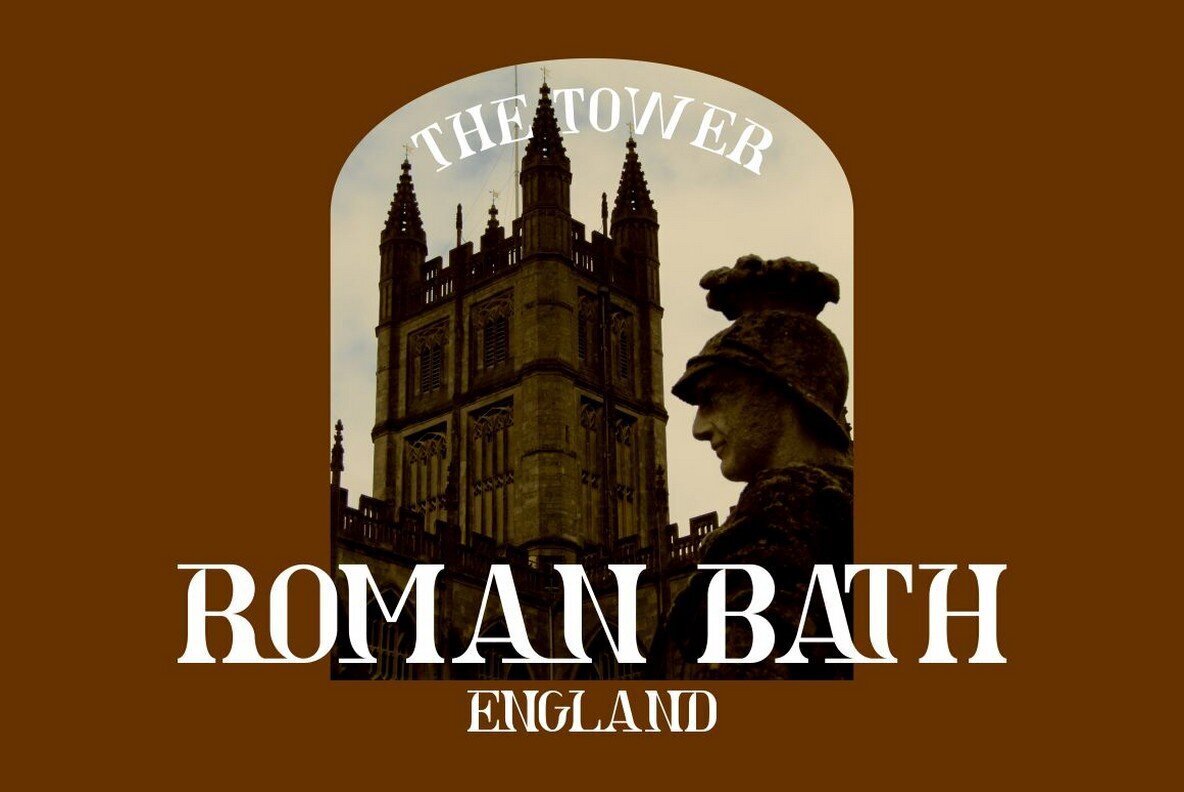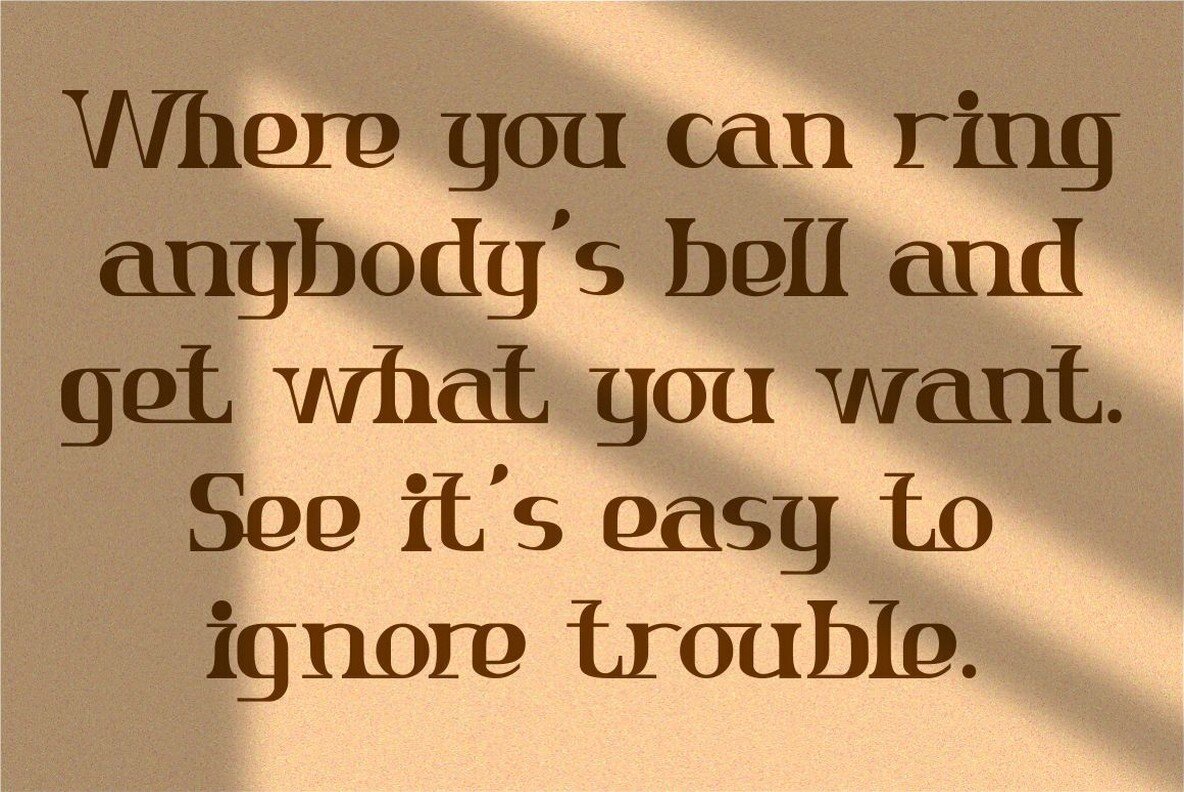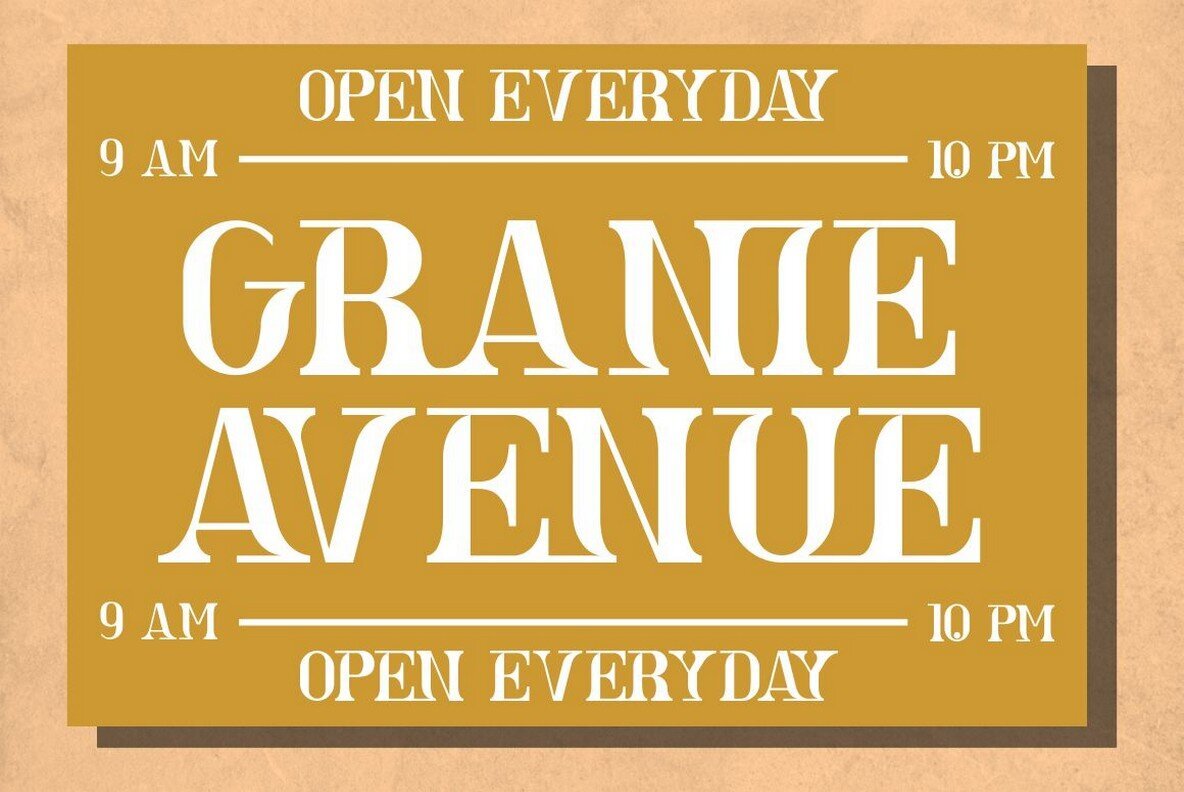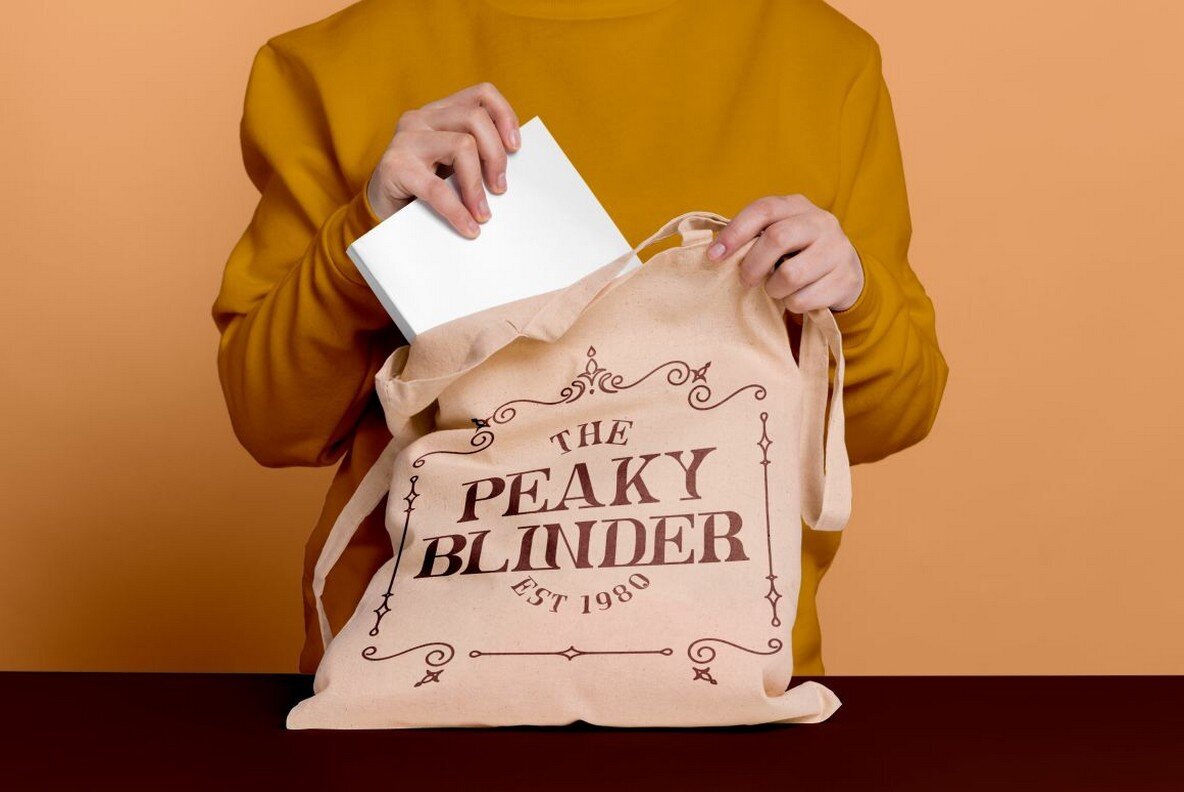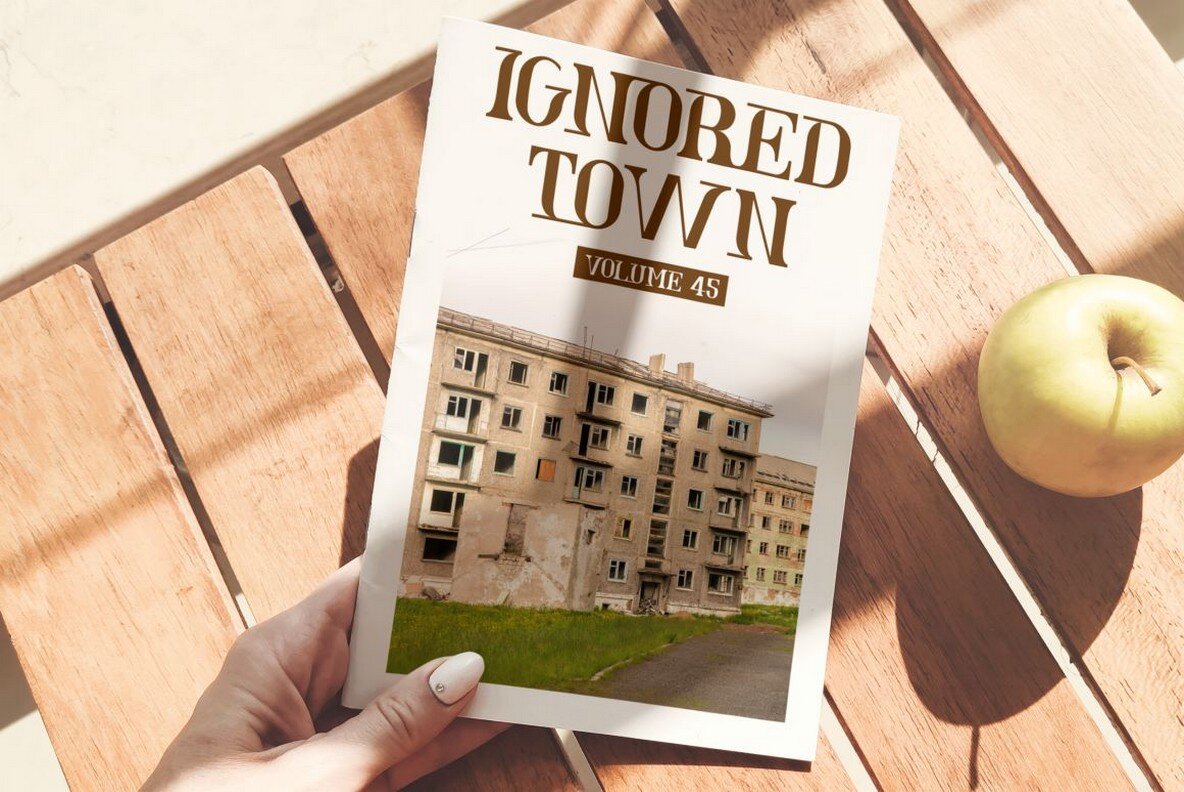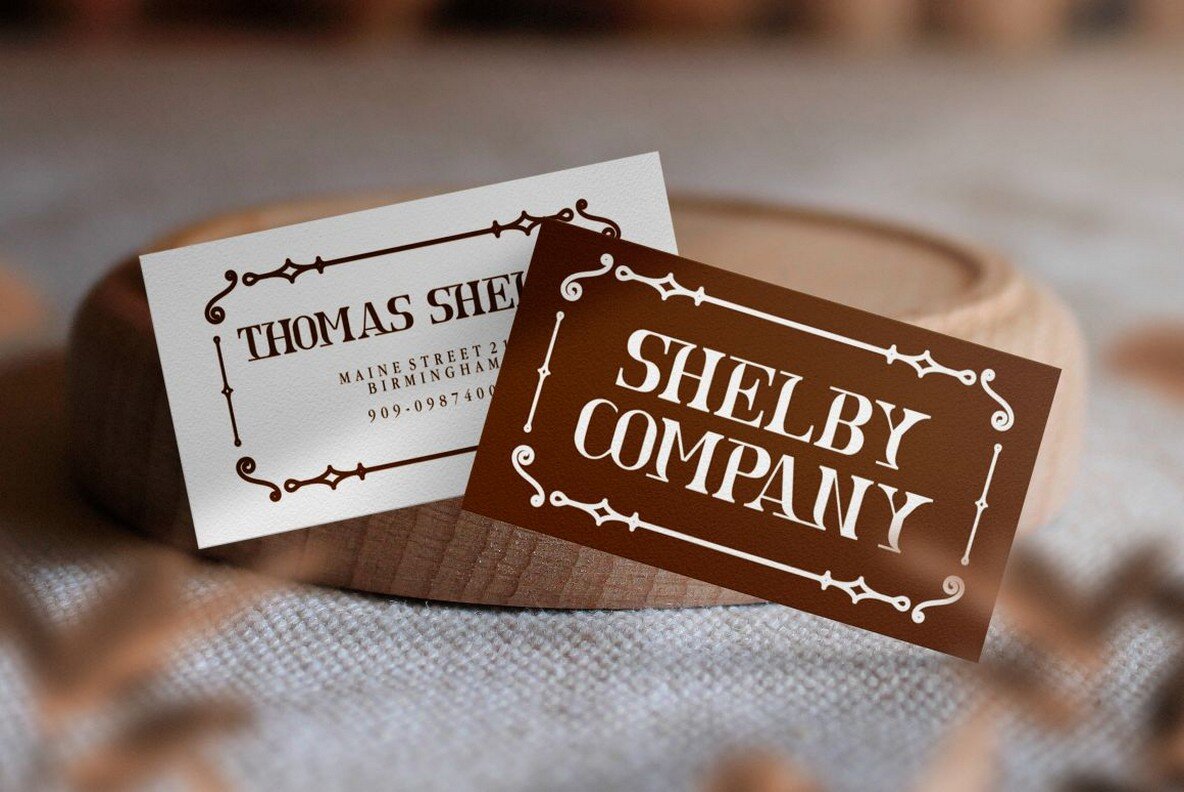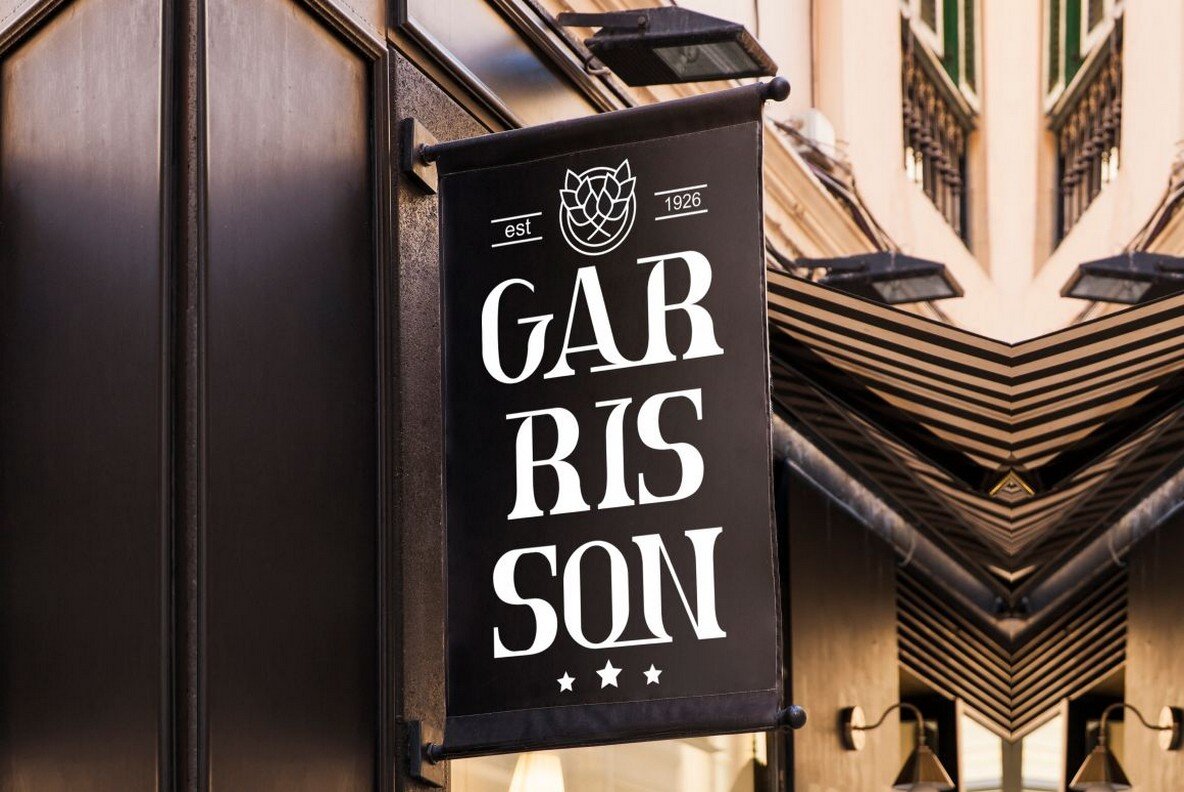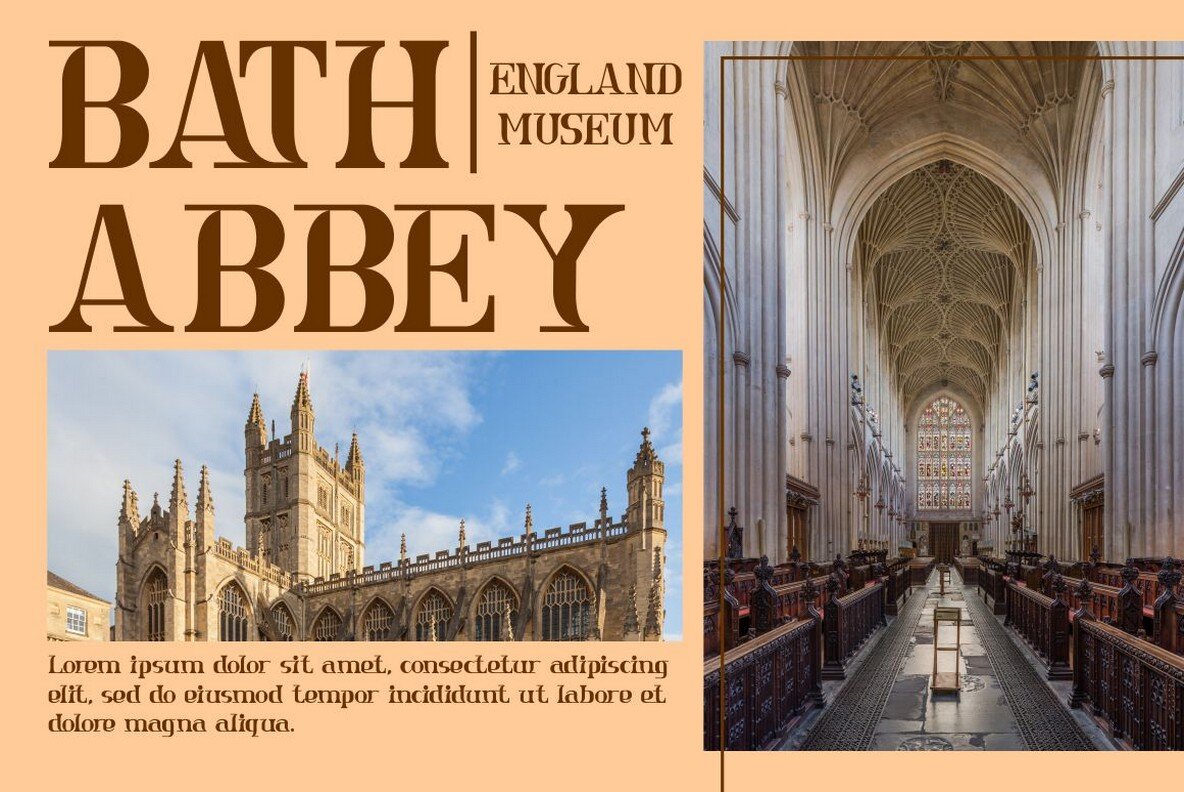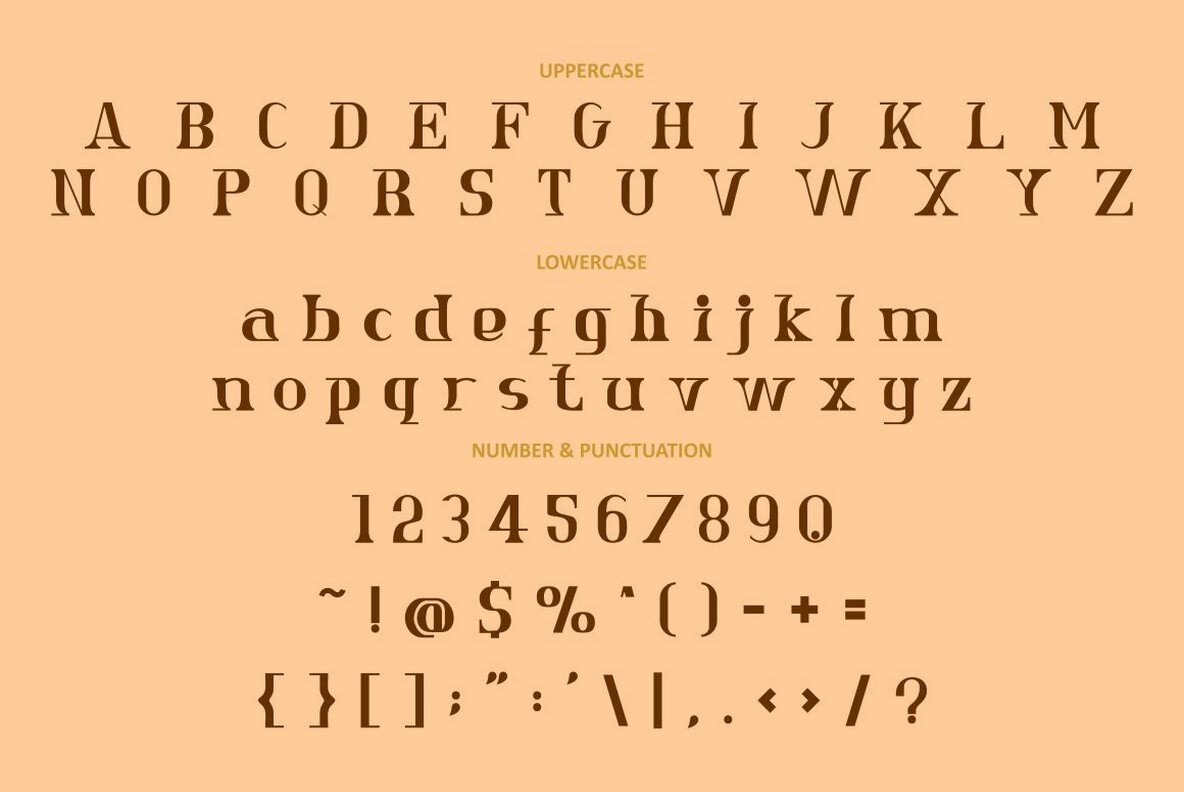
Astra Goldie Font
Astra Goldie
The Astra Goldie font offers a chic and lively aesthetic, inspired by bold font styles and perfectly balanced lines. Its design includes alternates that introduce an element of surprise to your projects, delivering both elegance and trendiness. This font provides a professional touch, enhancing its unique and timeless appeal. The versatility of Astra Goldie makes it suitable for a wide range of applications including logos, branding, greeting cards, invitations, and more. Whether developing advertisements, crafting titles and headlines, designing book covers, or creating stylish apparel, this font adapts seamlessly to your needs. Its usage extends to stickers, packaging, quotes, posters, and even billboards. Accessible via OpenType-savvy programs like Adobe Illustrator, InDesign, Photoshop, Corel Draw, and even Microsoft Word, Astra Goldie is at your service for creative and professional endeavors.Astra Goldie: A Display Font with Sophistication